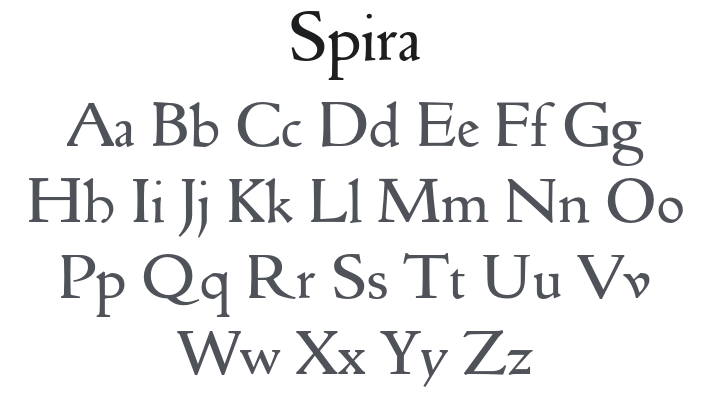
About Spira
Spira 110R, Proto-Roman first used in Venice by Johannes and Vindelinus de Spira for Cicero’s Epistolae ad familiares in 1469 and used until 1473 by Vindelinus. Type design workshop at ENSBA Lyon and Bibliothèque municipale de Lyon, March 2017.